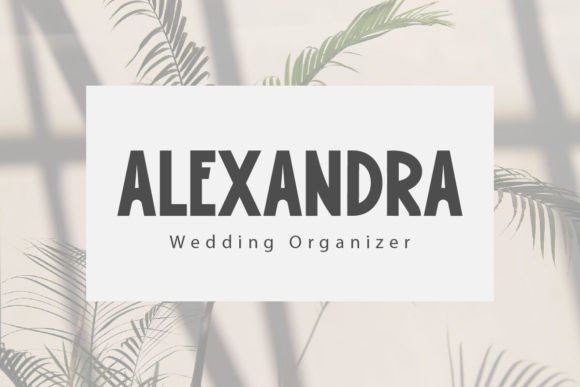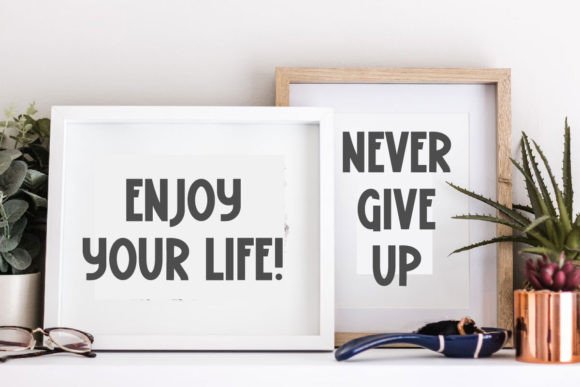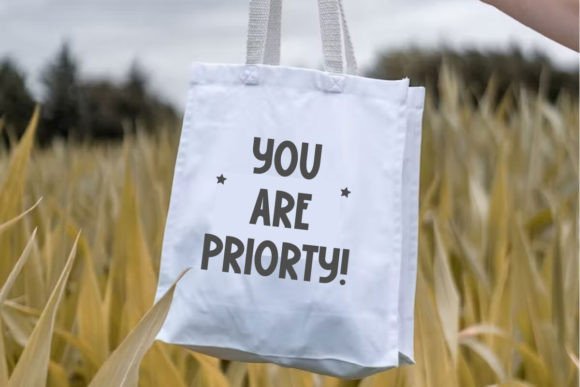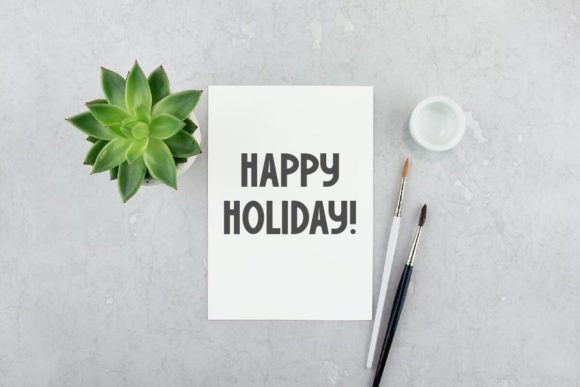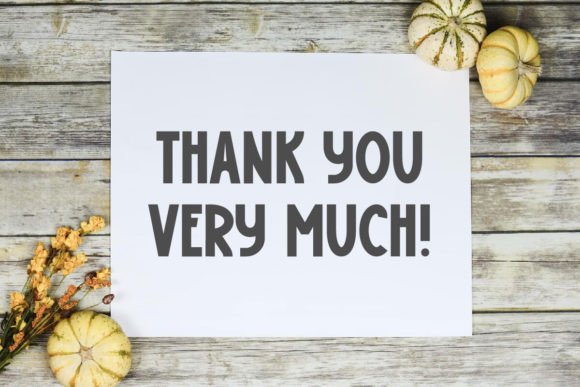
Farming Collector Font: The Ultimate Modern Sans Serif Font for Designers and Crafters
In the world of design, a font can make all the difference in creating a visually appealing and effective project. For designers and crafters looking for a modern and versatile font, Farming Collector Font is an excellent choice. This cool and modern Sans Serif font is perfect for a wide range of projects, from crafts and digital design to packaging, labels, weddings, posters, t-shirts, quotes, tote bags, presentations, branding, and greeting cards.
What Makes Farming Collector Font Stand Out?
Farming Collector Font is designed to be a go-to font for any occasion. Its clean and modern Sans Serif design makes it highly legible and perfect for both digital and print projects. The font’s versatility is one of its standout features, allowing designers and crafters to use it for various applications. Whether you’re creating a wedding invitation, a poster, or a social media graphic, Farming Collector Font is sure to make your project look professional and stylish.
Farming Collector Font is a dream come true for designers and crafters. Its modern design and versatility make it an excellent choice for a wide range of projects. Here are some ways designers and crafters can use Farming Collector Font:
- Crafts: Use Farming Collector Font to create beautiful and unique craft projects, such as handmade cards, gift tags, and scrapbook pages.
- Digital Design: This font is perfect for digital designers who want to create stunning social media graphics, blog posts, and website headers.
- Packaging: Add a touch of modern style to your product packaging with Farming Collector Font.
- Labels: Use this font to create eye-catching labels for your products or gifts.
- Wedding: Make your wedding invitations, programs, and decorations stand out with Farming Collector Font.
- Poster: Create eye-catching posters for events, promotions, or advertisements using this font.
- T-Shirt: Design stylish and modern t-shirts with Farming Collector Font.
- Quotes: Use this font to create inspiring and motivational quote graphics for social media or print.
- Tote Bag: Add a personal touch to your tote bags with Farming Collector Font.
- Presentations: Make your presentations more engaging and professional with this font.
- Branding: Use Farming Collector Font to create a consistent and modern brand identity.
- Greeting Cards: Create beautiful and heartfelt greeting cards with this font.
Why Choose Farming Collector Font?
There are many reasons why designers and crafters should choose Farming Collector Font for their projects. Here are a few:
- Modern Design: Farming Collector Font has a clean and modern Sans Serif design that is perfect for contemporary projects.
- Versatility: This font can be used for a wide range of projects, from crafts to digital design.
- Legibility: Farming Collector Font is highly legible, making it perfect for both digital and print projects.